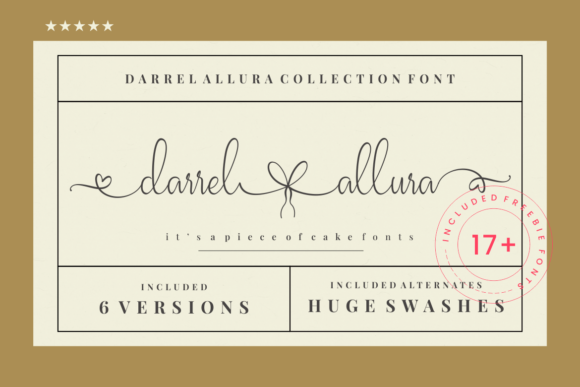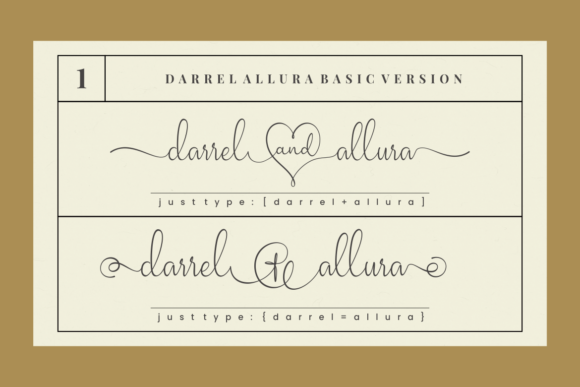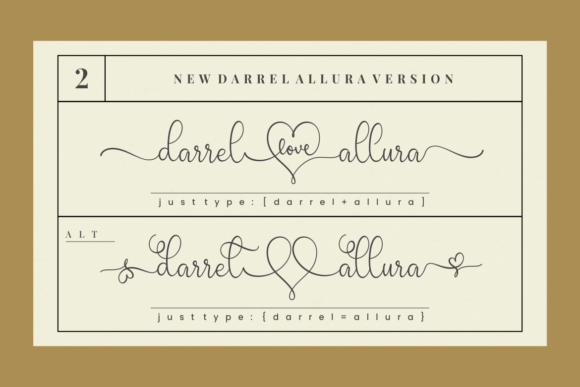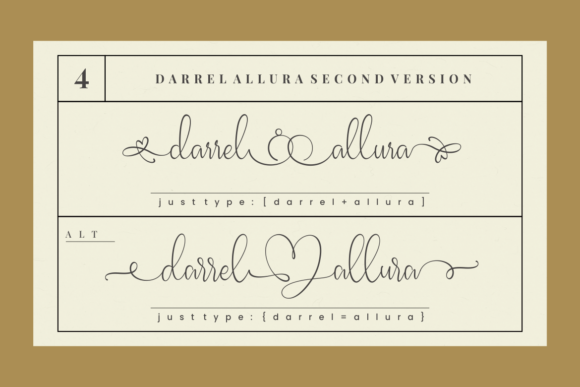
Darrel Allura Collection Font
About the Darrel Allura Collection Font
Add a touch of class to your work with the Darrel Allura Collection Font, a truly exceptional typeface. Darrel Allura Collection is a magical script font carefully created with a touch of elegance. Whether you’re looking for fonts for Instagram or calligraphy scripts for DIY projects, this font will turn any creative idea into a true piece of art! This font is PUA encoded, which means you can access all of the glyphs and swashes with ease!
Darrel Allura’s elegant, slightly whimsical style makes it ideal for headlines, short text blocks in branding materials, or invitations. It lends itself well to projects needing a touch of sophistication and handcrafted charm, such as wedding stationery or luxury product packaging. However, its intricate details make it unsuitable for body text or UI elements; legibility suffers at smaller sizes or within dense layouts.
Pairing Darrel Allura with a clean sans-serif like Montserrat for body text creates a balanced contrast, maintaining elegance without sacrificing readability. Alternatively, a classic serif such as Garamond offers a more traditional pairing, suitable for projects requiring a sense of timeless quality. For a bolder aesthetic, consider pairing it with a geometric sans-serif like Futura.
The overall personality of Darrel Allura is sophisticated yet approachable, blending elegance with a playful energy. Its charm is best showcased in projects where visual impact and refined aesthetics are key.
Darrel Allura Collection Font Usage Examples
Darrel Allura Collection Font Example